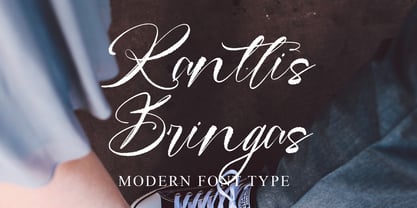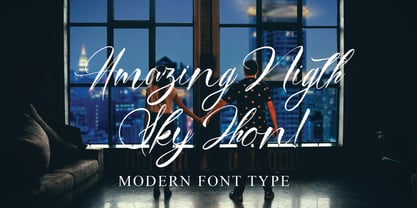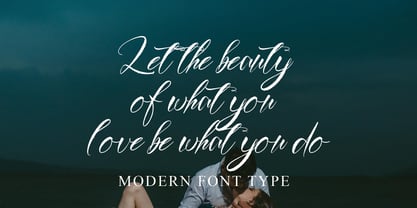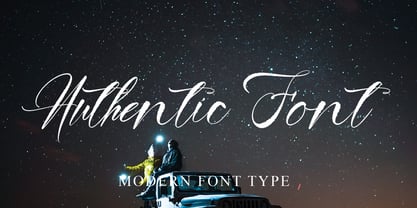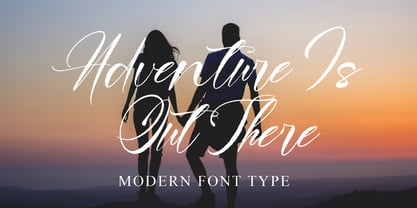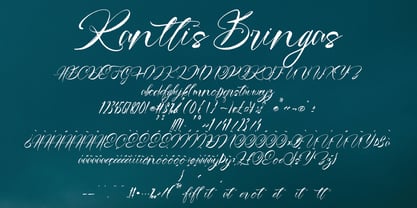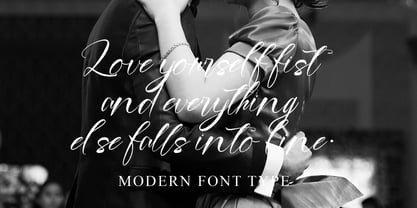
Ranttis Bringas
by Naatypo
The Ranttis Bringas Font Family was designed by Kurnia Elis Setyorini and published by Naatypo. Ranttis Bringas contains 1 styles. More about this family
Immerse yourself in the novel brilliance of Ranttis Bringas - a striking bold script typeface with a rounded, modern twist. This delightful font not only embodies contemporary fun and aesthetic charm, but also carries a multifaceted nature that allows your designs to popup with an utter uniqueness. Whether it's crafting engaging visuals, personifying a brand ethos, enlivening a logo, crafting enchanting invitations, conceptualizing adverts or spinning wedding themes, Ranttis Bringas knows how to leave a mark. The font additionally shines in tailoring product packaging, chiseling product designs, producing individualized labels, or even authoring eye-catching posters. Perfectly suited for photography and special events, Ranttis Bringas emerges as the perfect blend of trendiness, allure and standout class for every design goal.
Designers: Kurnia Elis Setyorini
Foundry: Naatypo